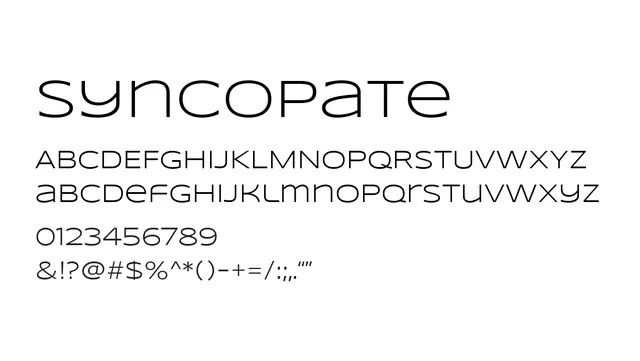
Syncopate
Geometric sans-serif with skeletal proportions and ultra-thin strokes for a distinctly modern, minimal aesthetic.
Best for headlines and display text where contemporary minimalism is desired. Less suitable for body text due to low contrast and thin strokes reducing readability at small sizes.
Pairs well with humanist sans-serifs like Open Sans for warmth, or with minimalist serifs like EB Garamond for contrast.